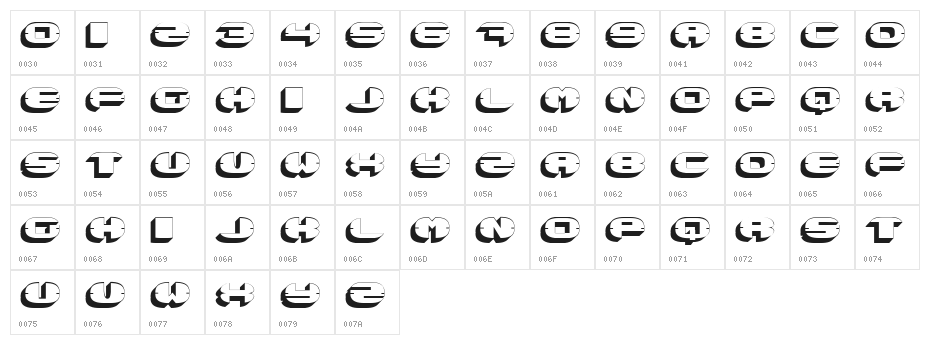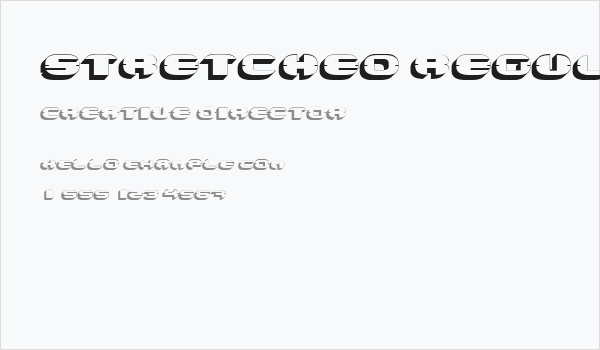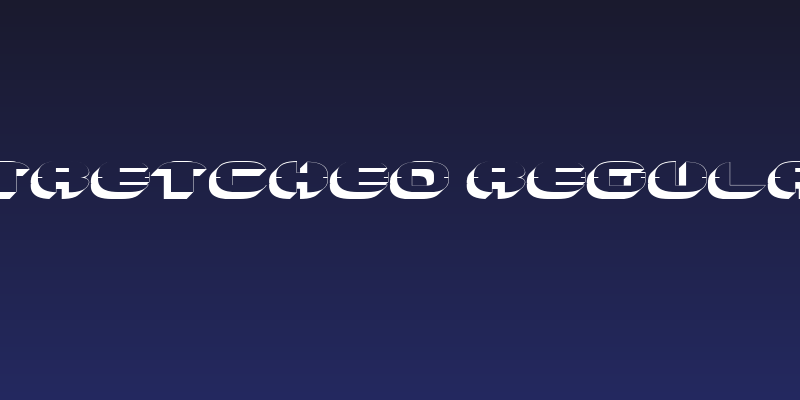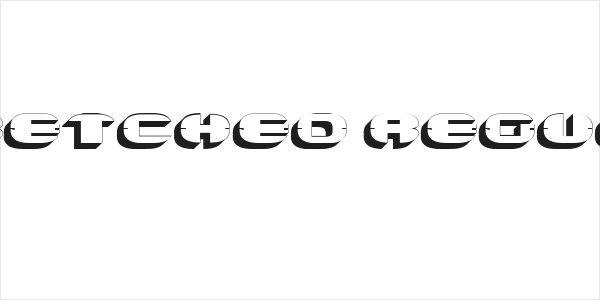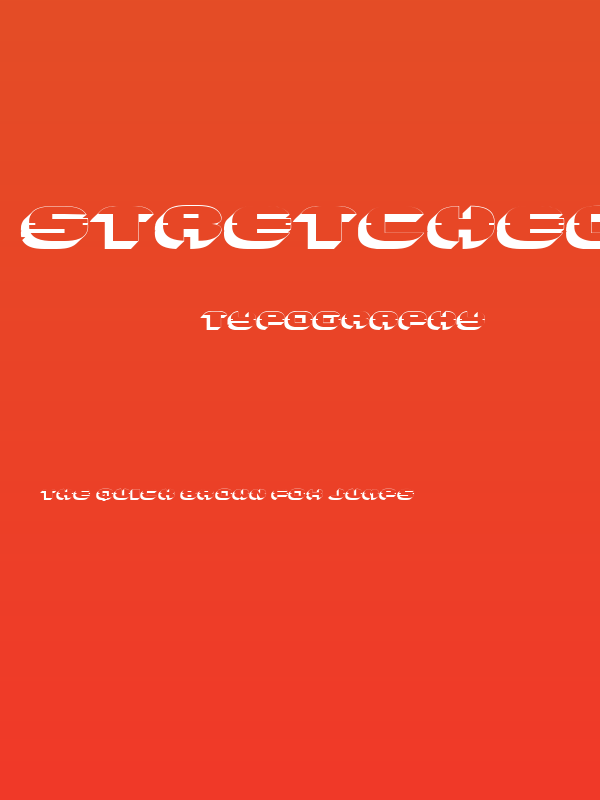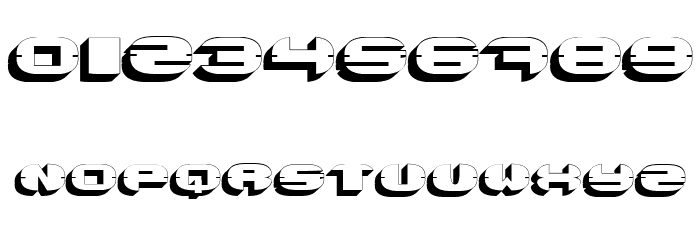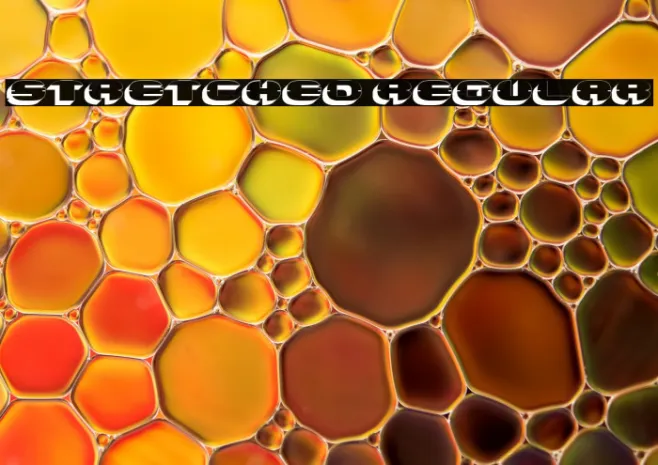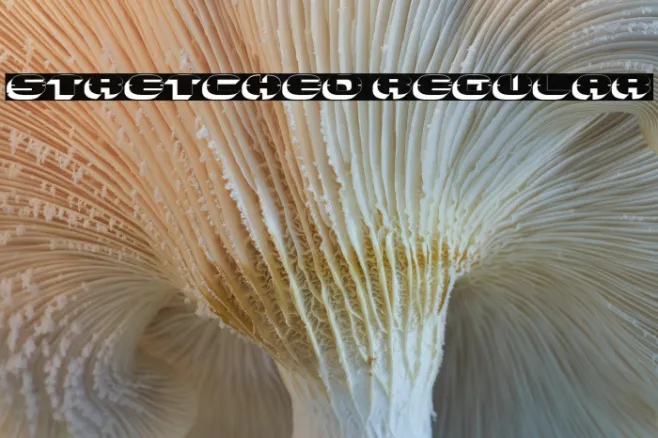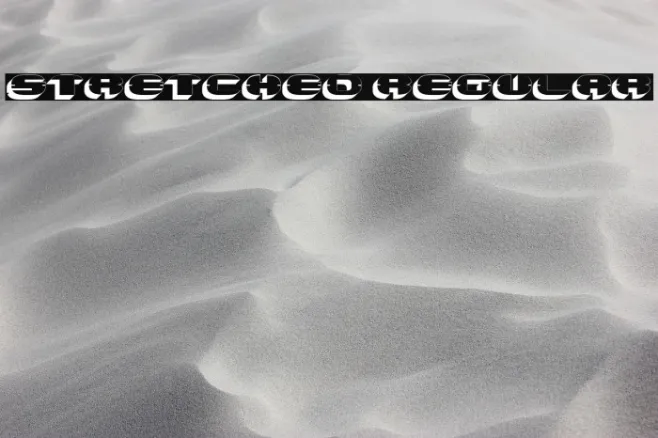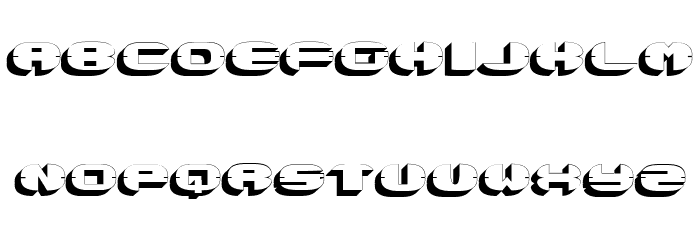
Stretched Regular Font
Stretched Regular Description
This font features a bold and dynamic design with a three-dimensional effect that gives it a sense of depth and movement. The characters are wide and rounded, with a shadow that creates a layered appearance. The uppercase and lowercase letters maintain a consistent style, while the numbers and special characters are equally bold and impactful. The overall look is modern and eye-catching, making it suitable for projects that require a strong visual presence.
| Proposed Projects | Ideal for headlines, posters, logos, and any design that needs a striking and bold typeface. |